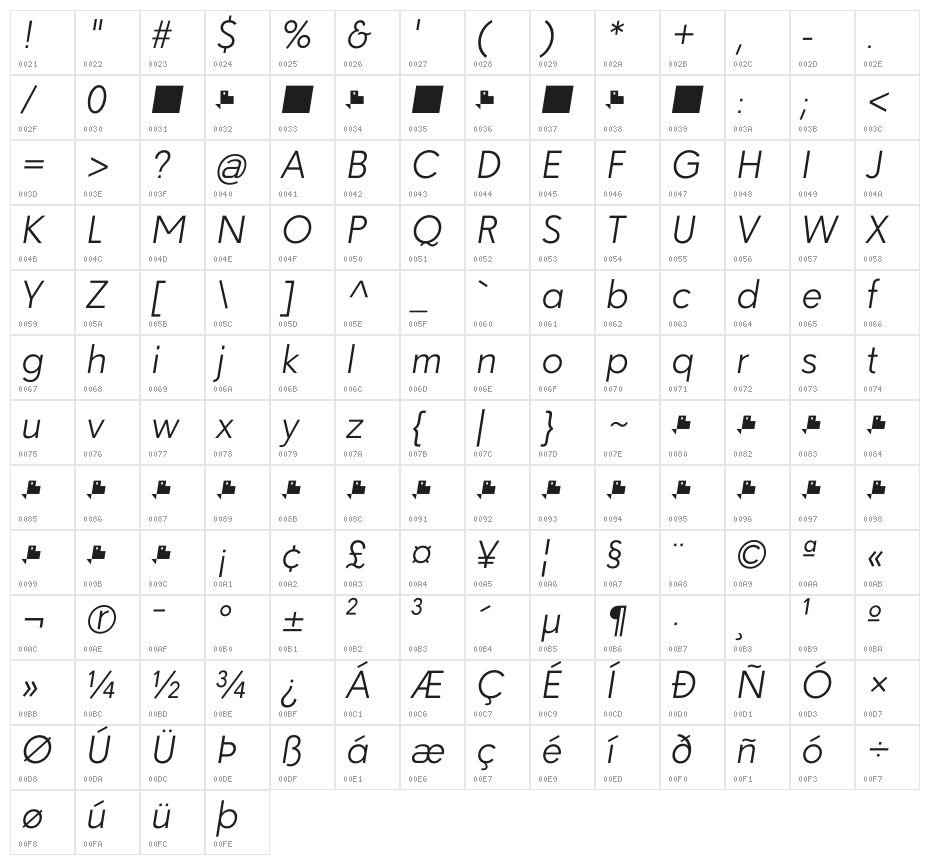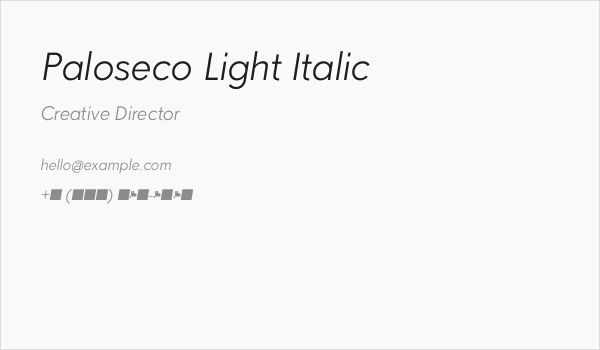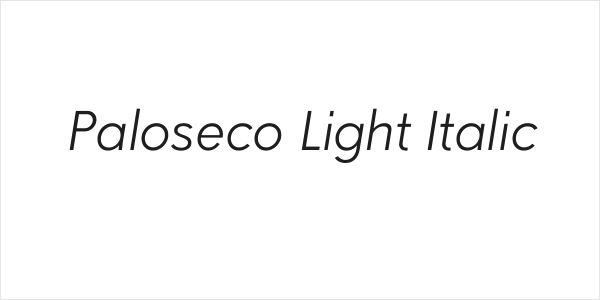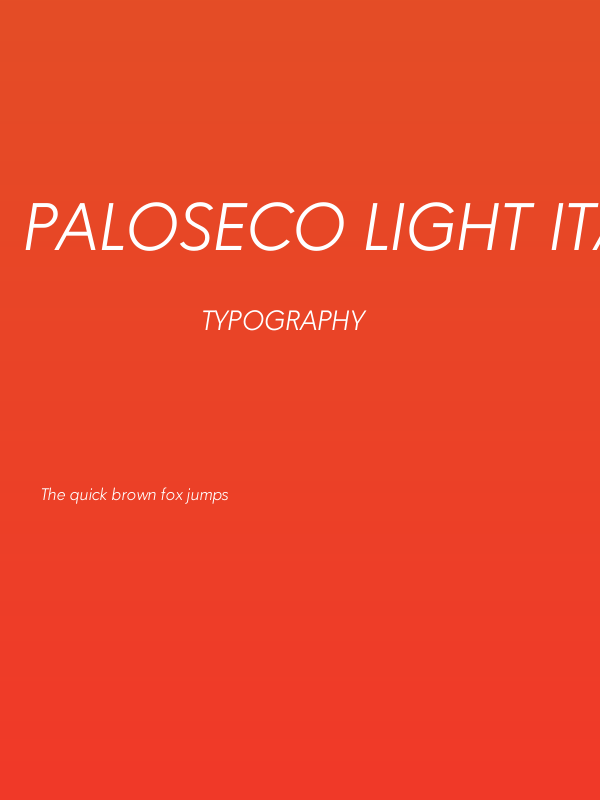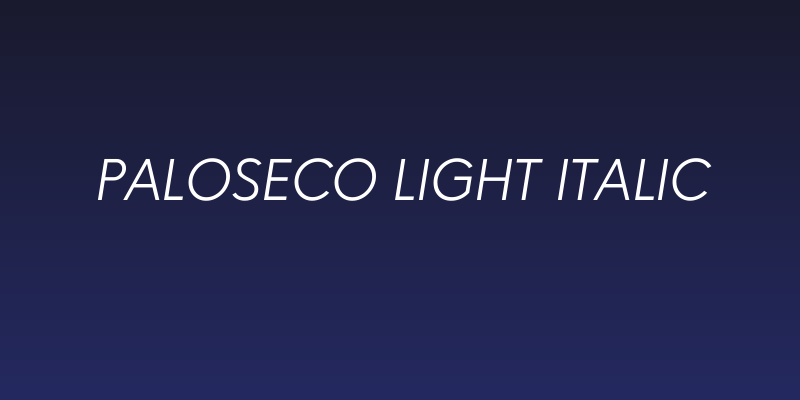
Paloseco Light Italic Font
Paloseco Light Italic Description
This font features a sleek and modern design with a light weight and italic style. The characters are elegantly slanted, giving a sense of motion and fluidity. The strokes are consistent and smooth, with a medium contrast that enhances readability while maintaining a stylish appearance. The overall design is clean and uncluttered, making it suitable for a variety of applications. The special characters are distinct and well-integrated, complementing the alphabetic characters seamlessly.